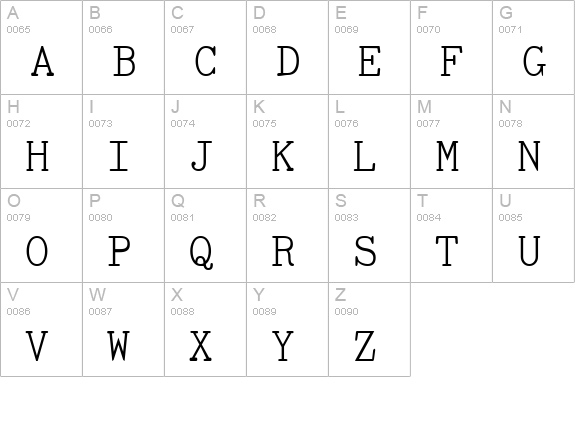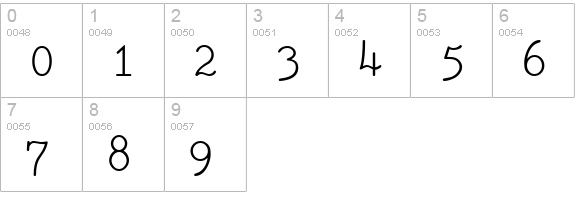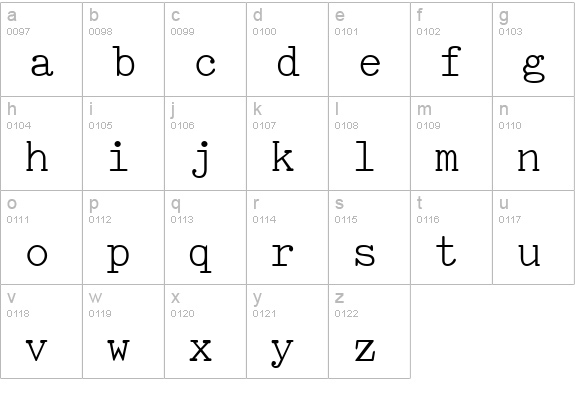
TiredOfCourier Plain Font Details
TiredOfCourier Plain font is a perfect choice for those who are seeking a unique and versatile typeface. This font exudes a sense of sophistication and elegance, making it suitable for a wide range of design projects. With its clean and minimalist design, TiredOfCourier Plain font is highly legible and easy on the eyes, making it a great choice for both print and digital media. Whether you're working on a brochure, website, or any other creative endeavor, this font will add a touch of professionalism and style. One of the most appealing aspects of TiredOfCourier Plain font is that it is freely available to download at FontsMarket.com. This means that you can easily access and use this font in your projects without any cost. The availability of this font for free adds immense value and convenience, making it a must-have for designers and creatives alike. The versatility of TiredOfCourier Plain font is evident in its ability to adapt to various design styles and themes. Whether you're aiming for a modern and sleek look or a more traditional and classic aesthetic, this font seamlessly blends in and enhances the overall design. In conclusion, TiredOfCourier Plain font is a highly versatile and visually appealing typeface that is freely available to download at FontsMarket.com. Its clean and sophisticated design, combined with its wide range of applications, makes it a valuable addition to any designer's toolkit. So why wait? Download TiredOfCourier Plain font now and elevate your design projects to new heights.